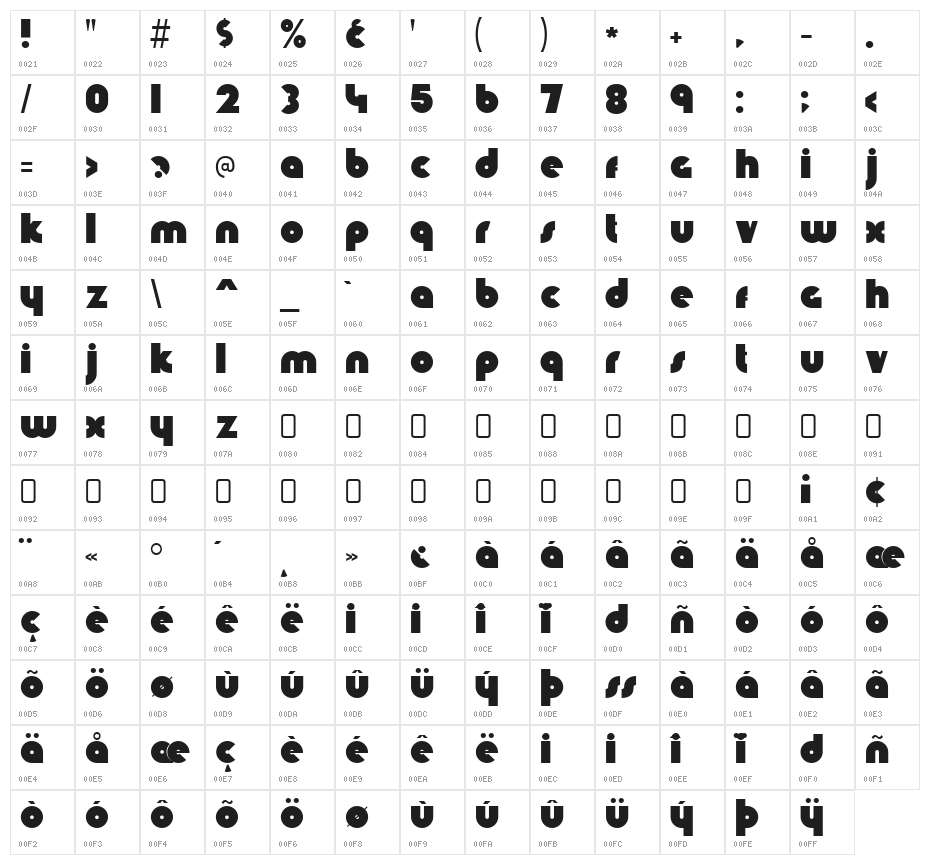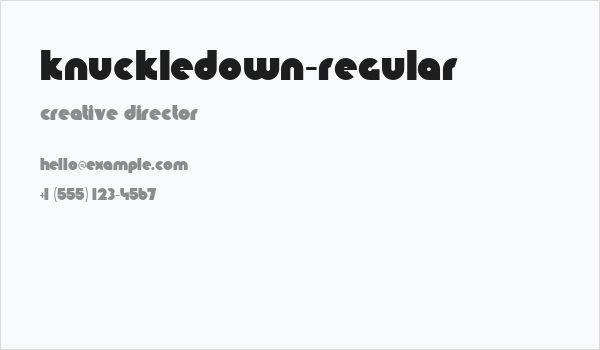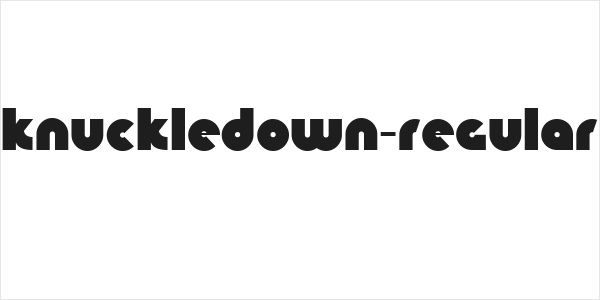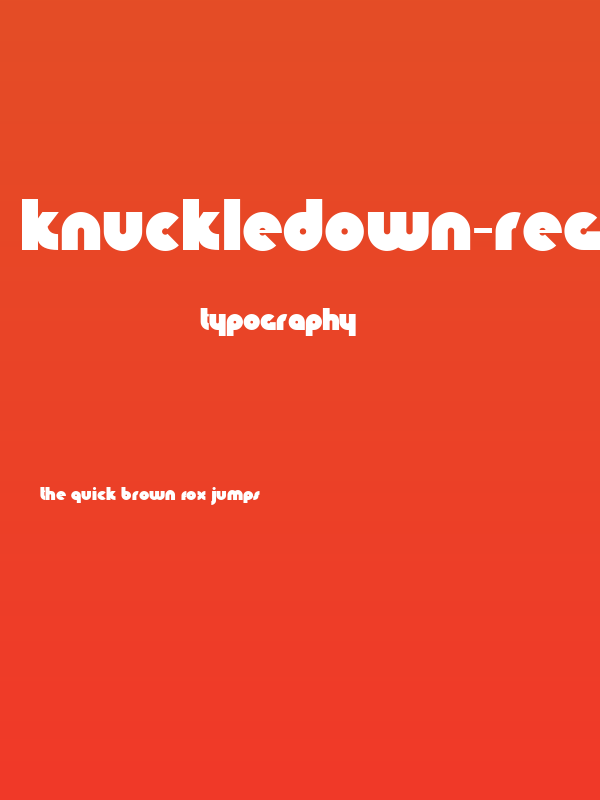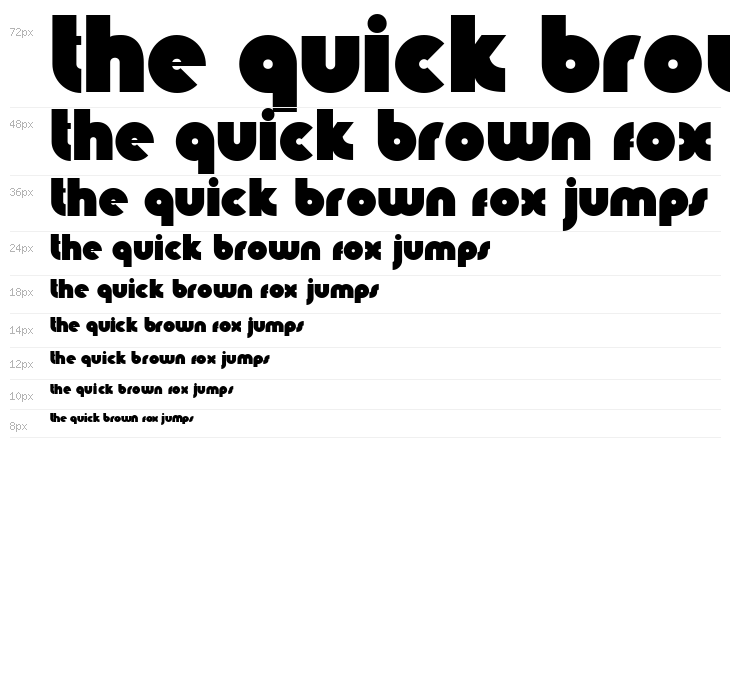
KnuckleDown-Regular Font
KnuckleDown-Regular Description
This font features a bold and geometric design with a strong presence. The characters are constructed with thick, uniform strokes and rounded edges, giving it a modern and playful appearance. The uppercase and lowercase letters maintain a consistent style, with the lowercase letters mirroring the boldness of the uppercase. The numerals and special characters follow the same design principles, ensuring a cohesive look across all glyphs. The font's distinct style makes it suitable for attention-grabbing headlines and creative projects.
| Proposed Projects | Ideal for posters, logos, branding, and any design requiring a bold, modern touch. |